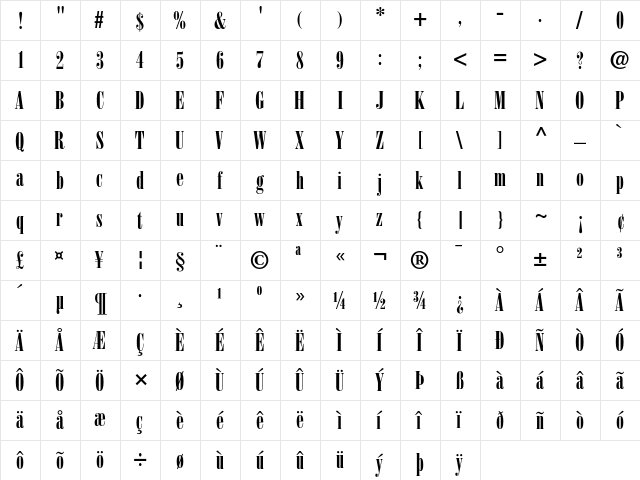
Bodoni Poster Compressed Font Preview
Bodoni Poster Compressed
Bodoni Poster Compressed Font Details
| Style | Poster Compressed |
Design Context for Bodoni Typeface
Bodoni offers clean, dependable letterforms without strong stylistic allegiance, making it a practical choice for designers who need flexibility.
Pro Tip: Pair Bodoni with a font of contrasting weight or personality to build a more expressive typographic hierarchy.